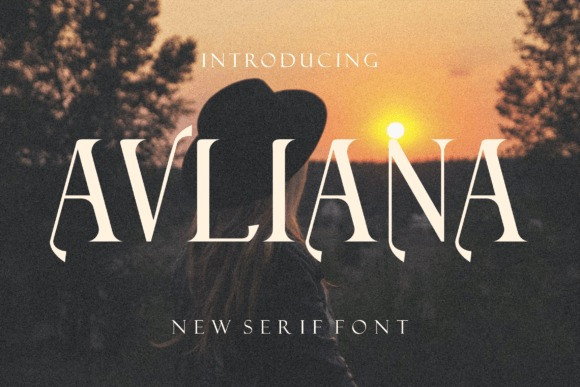
Avliana Font
Designer: prayoga_std
Avliana Font is a serif font that feels beautiful classy, elegant, and modern. This font is perfectly suited for a wide variety of projects, such as signature, stationery, logo, wedding, typography quotes, magazine or book cover, website header, clothing, branding, packaging design, and more.
AVLIANA